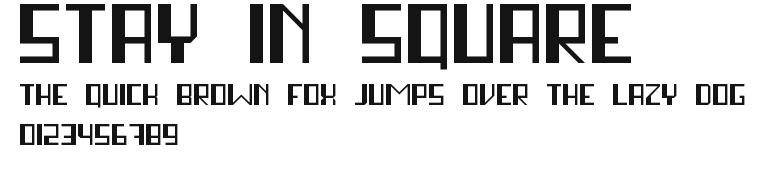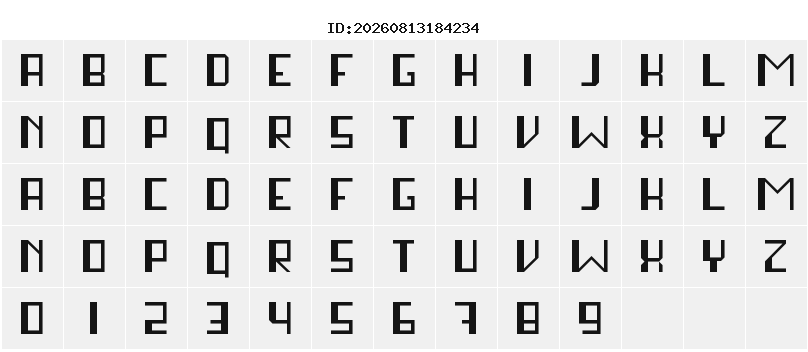
stay in square Preview
• Font Name: stay in square
• Font ID: FontStruct stay in square
• Full Font Name: stay in square Regular
• PostScript Name: stay-in-square
• Character Count: 89
• Designer: paulineym
• Description: “stay in square” was built with FontStruct
About stay in square.ttf
stay in square.ttf is a modern, elegant sans-serif font designed for ultimate readability and visual harmony. Perfect for branding, headlines, web design, and print materials.